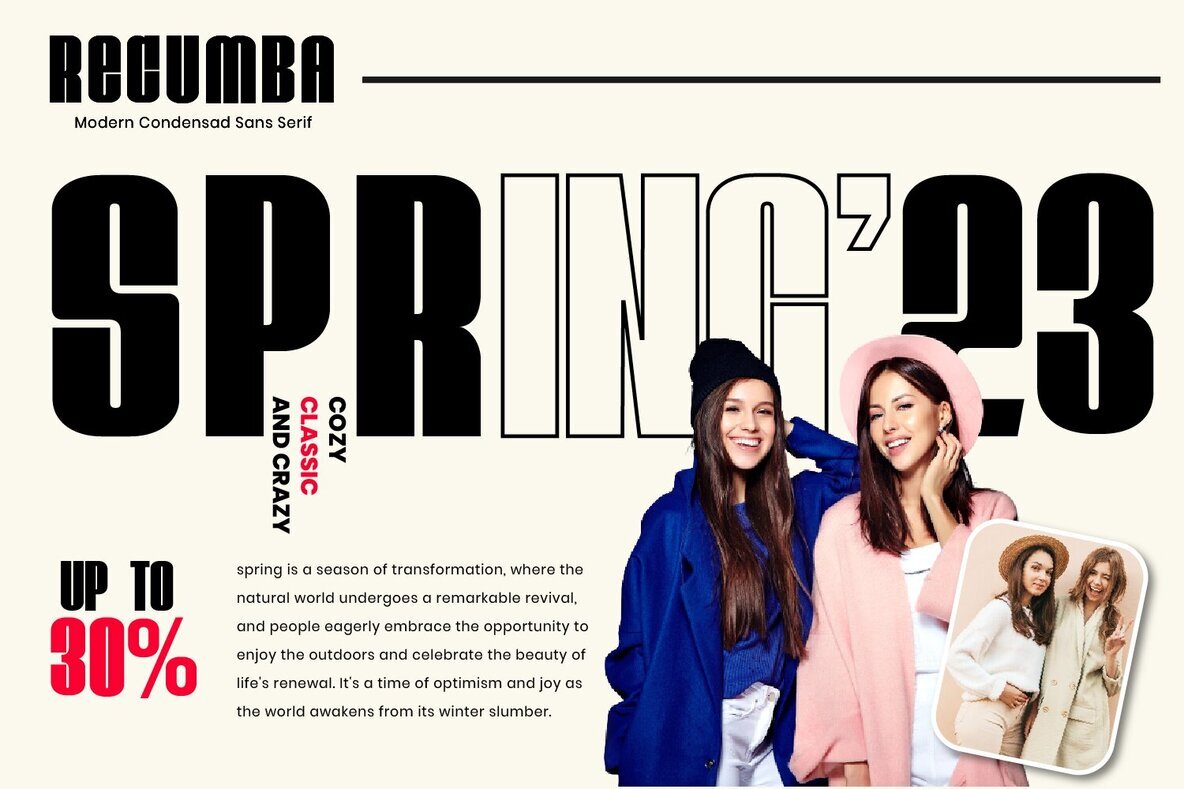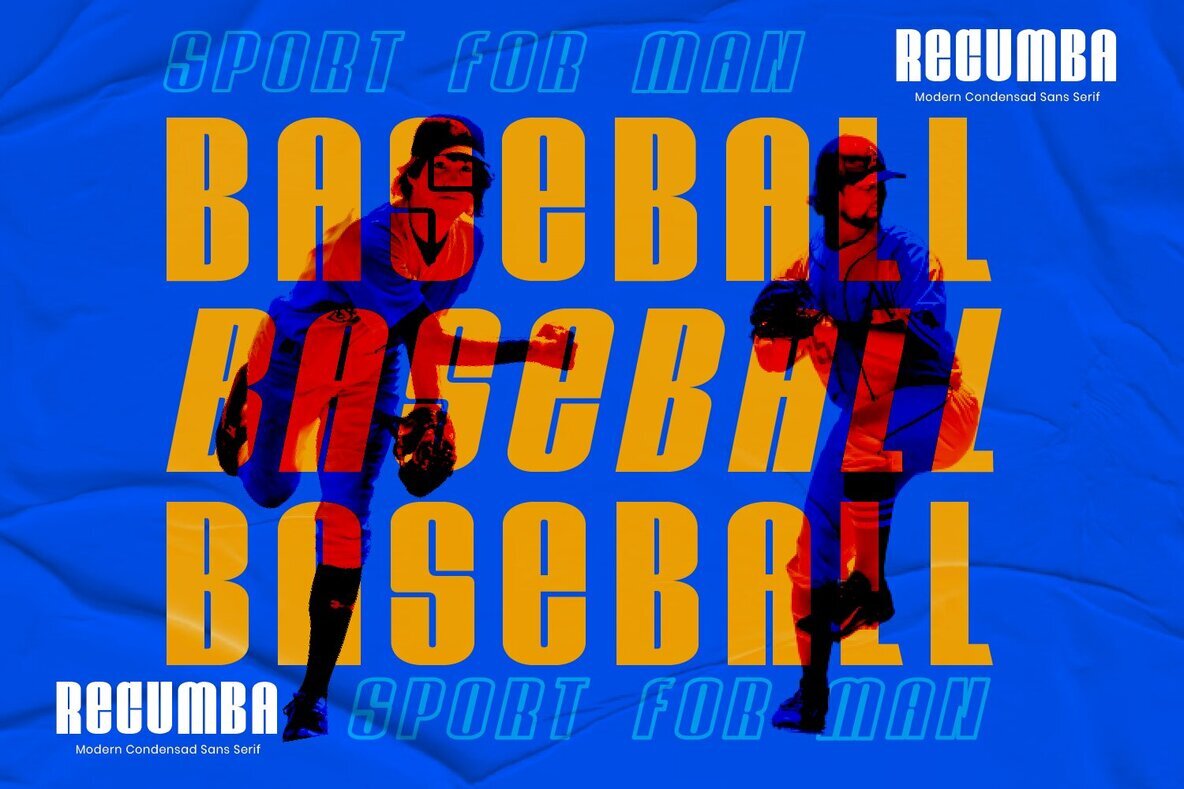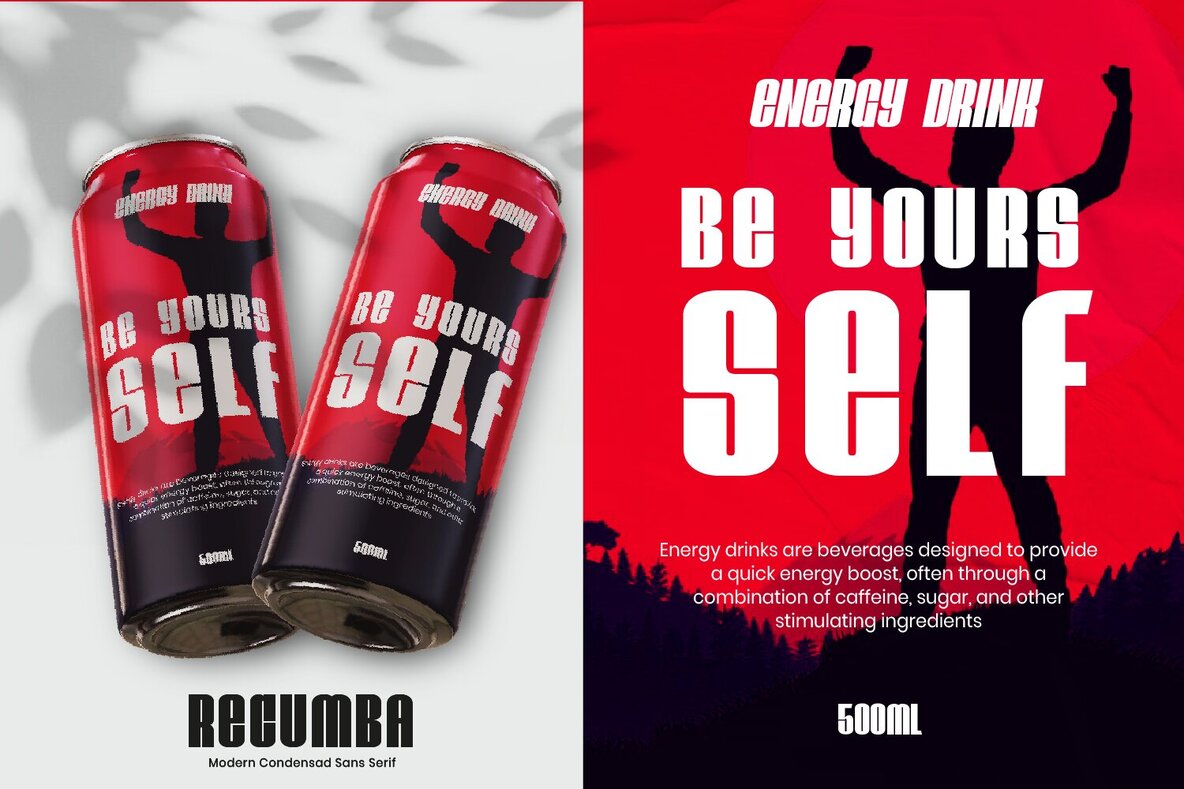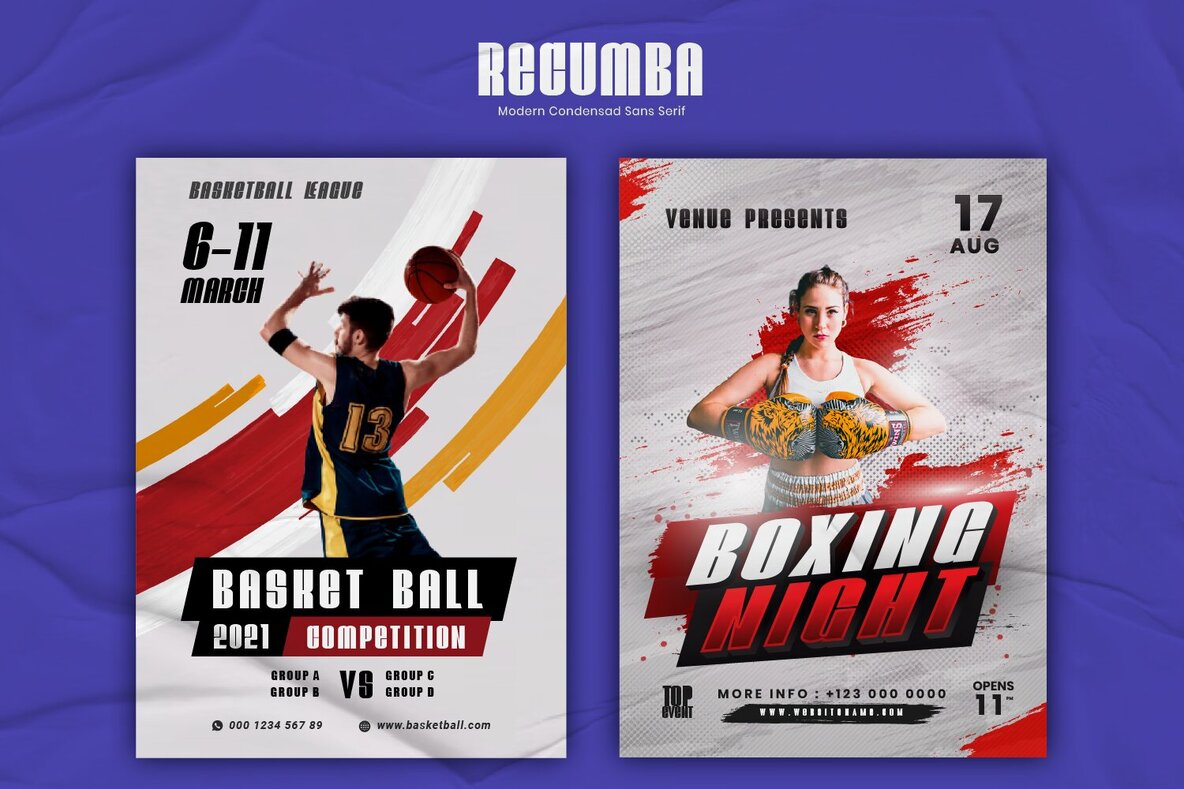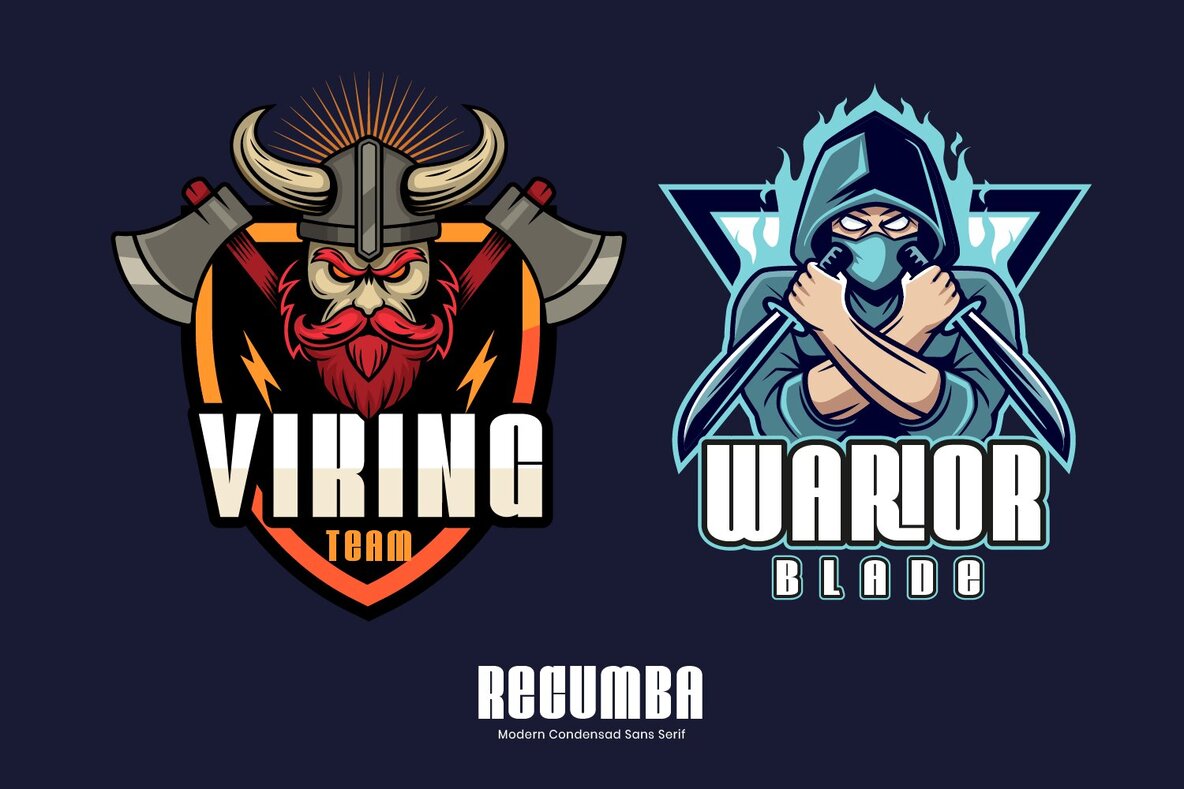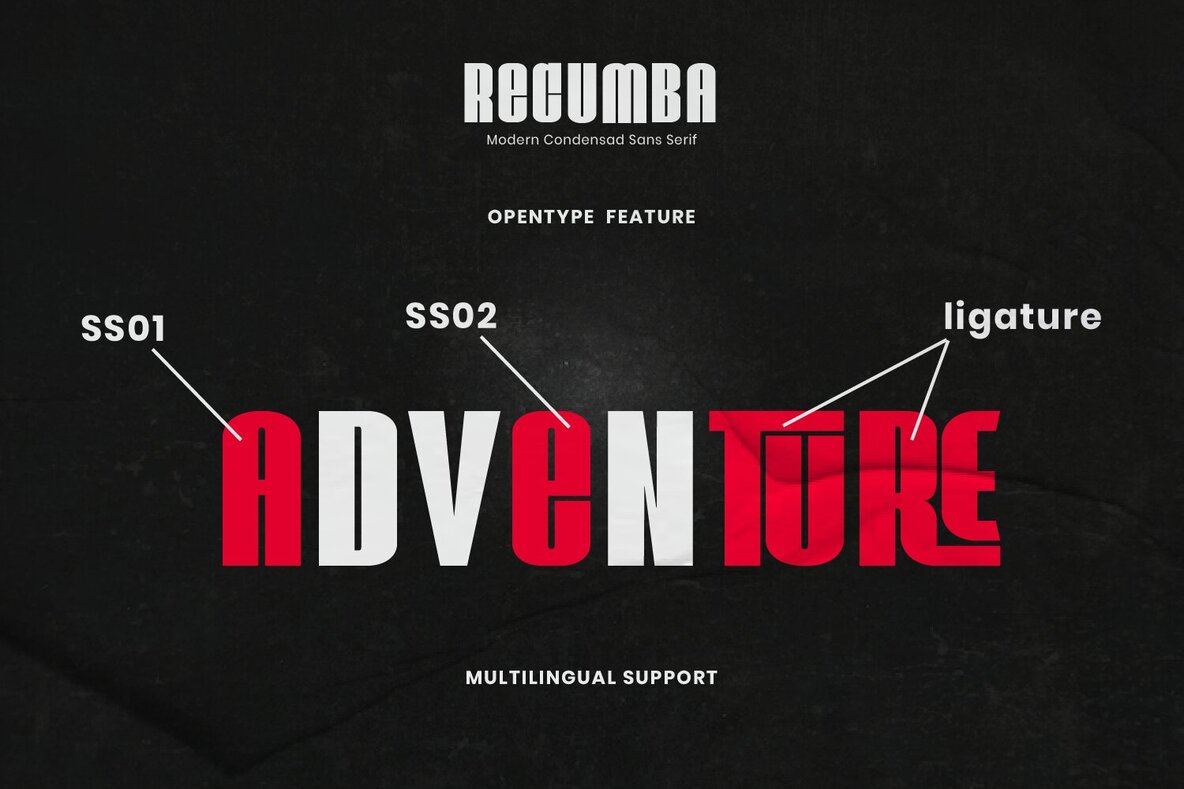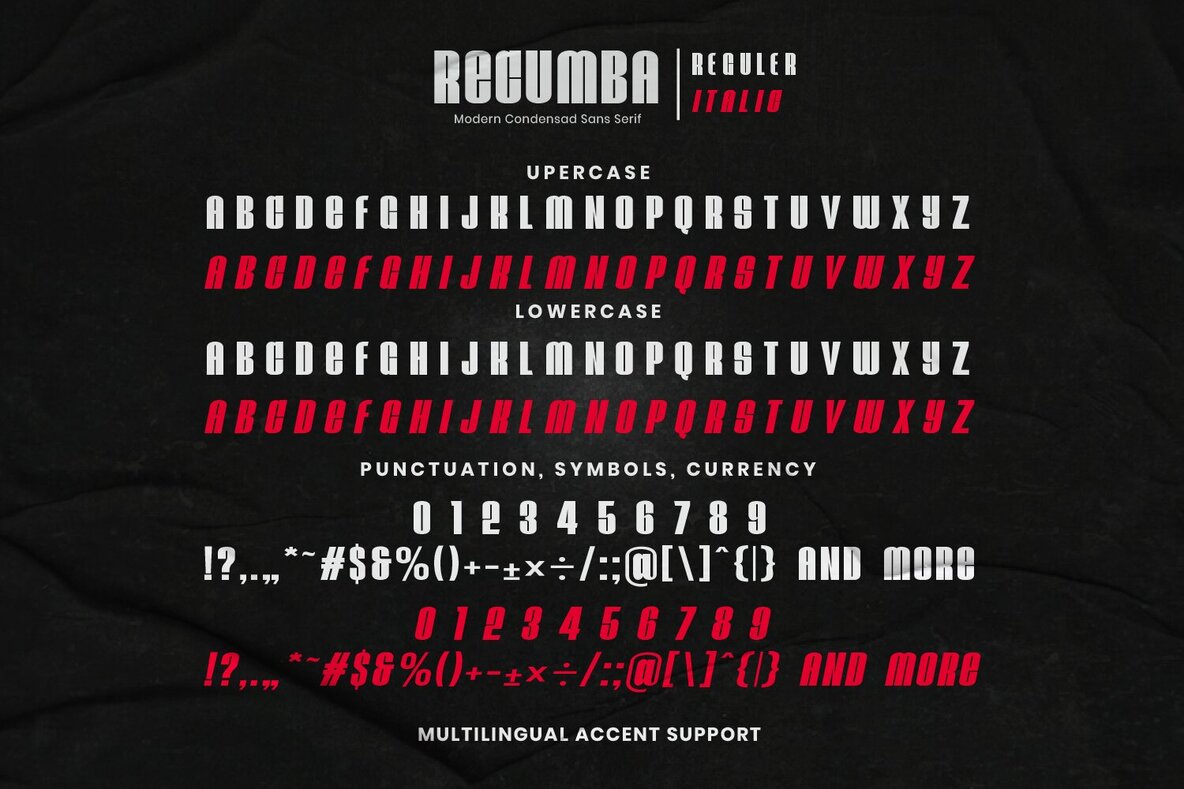
Recumba Font
Recumba is a modern display font featuring bold characters, ideal for branding projects, headlines, posters, movie titles, games, logos, social media posts, advertisements, product packaging, labels, photography, watermarks, stationery, and any creative project seeking a touch of modern bold elegance.